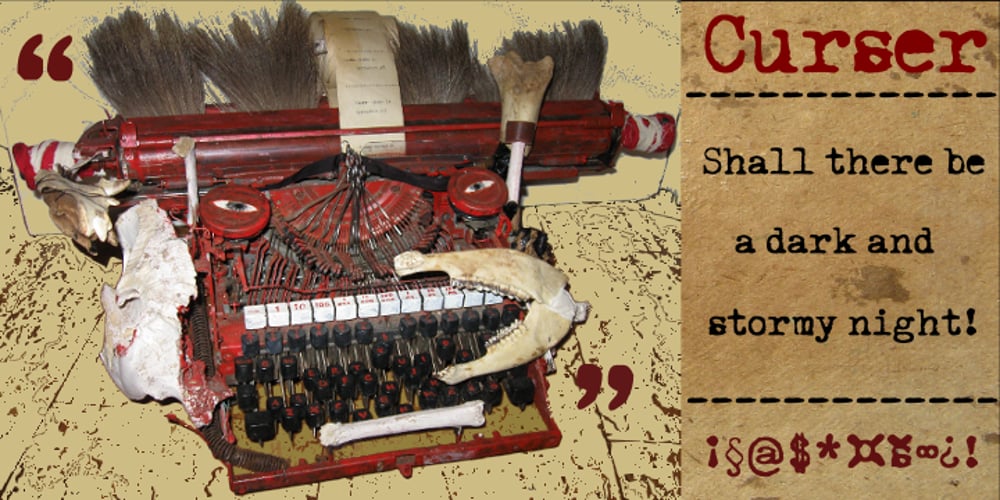
Curser Font Family was designed by Heikki Morgan Hämäläinen and published by Morganismi. Curser contains 1 styles and family package options. Curser is an oldish-looking typewriter font, decayed and scary. The special characters give an expression that they have been made using the common keys and moving the paper. Curser supports West and Central European languages as well as Baltic, Turkish and Romanian.